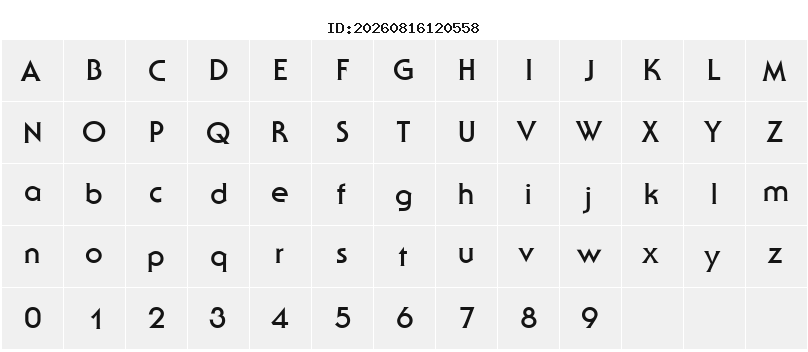
• Font Name: Staid Gothic
• Full Font Name: Staid Gothic Bold
Staid Gothic.ttf is a modern, elegant sans-serif font designed for ultimate readability and visual harmony. Perfect for branding, headlines, web design, and print materials.